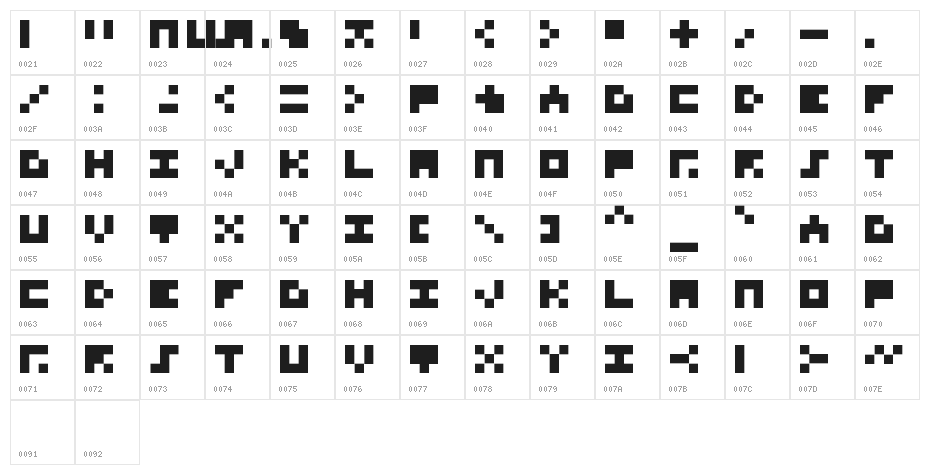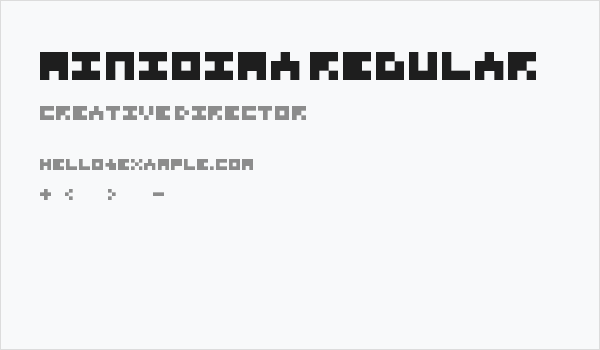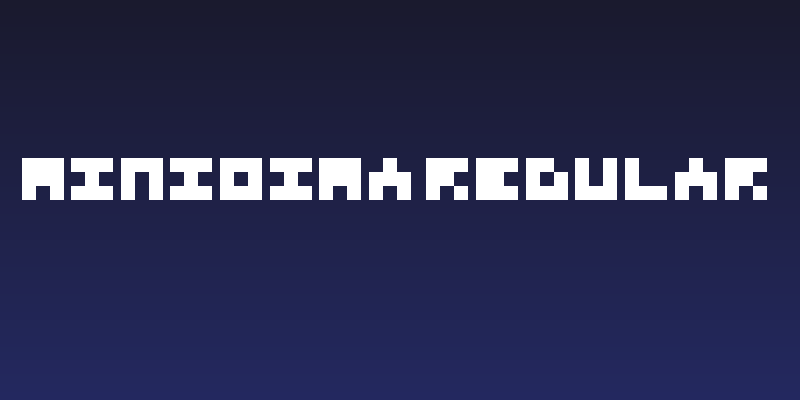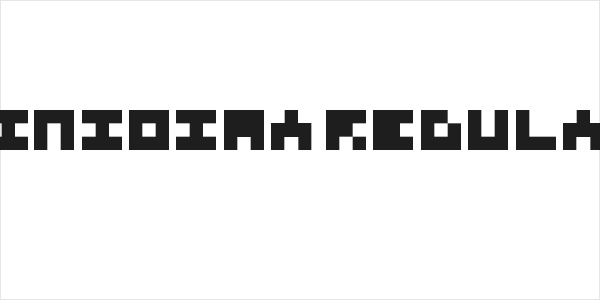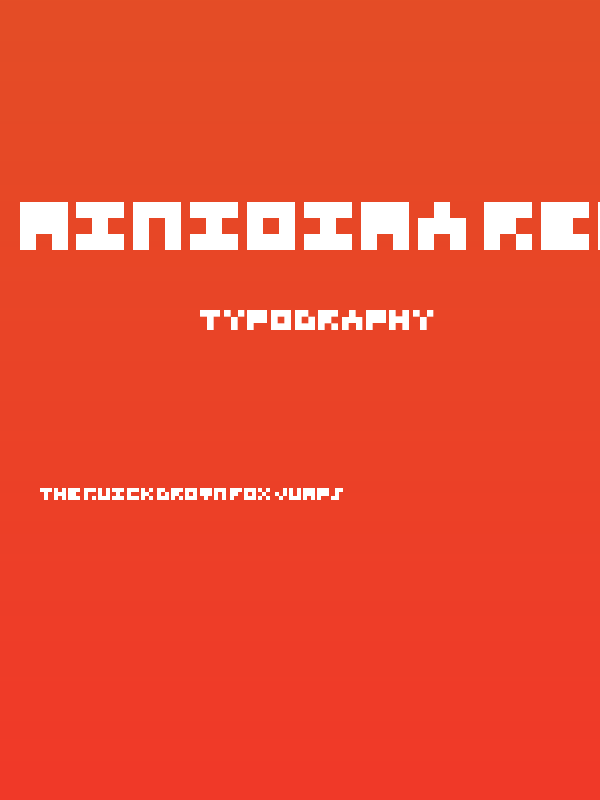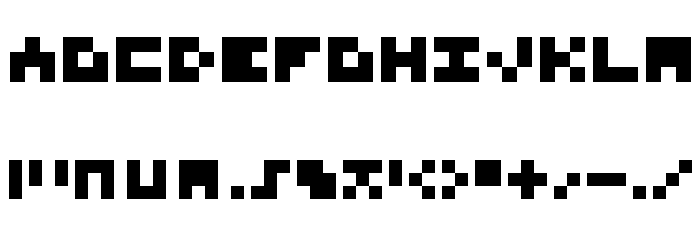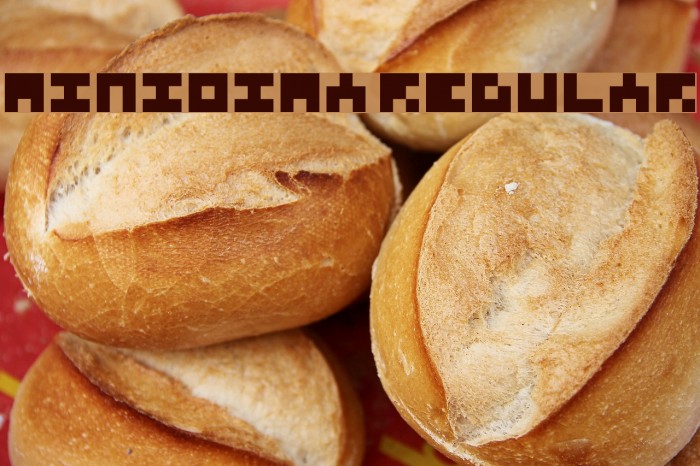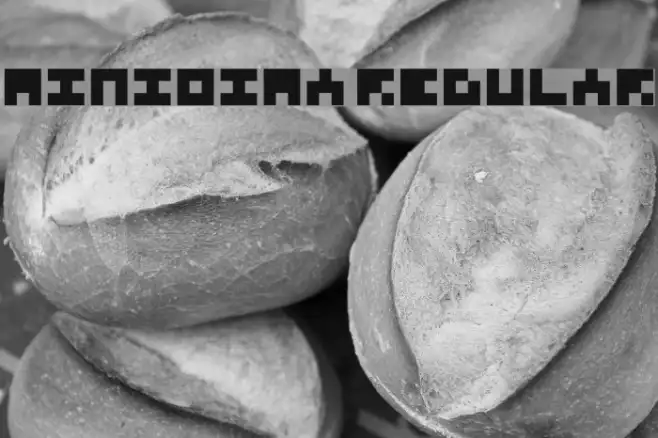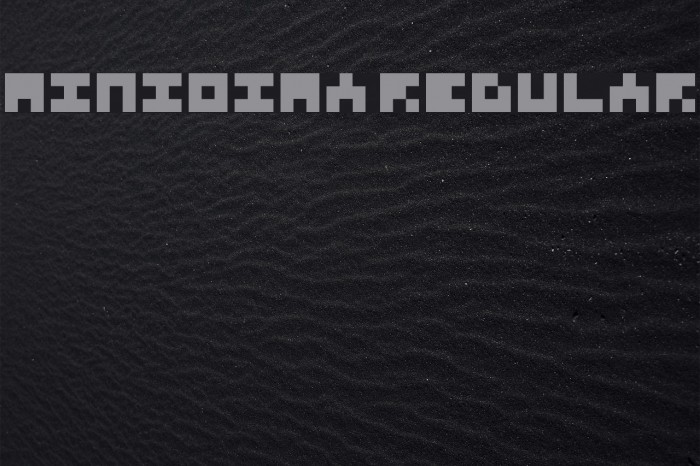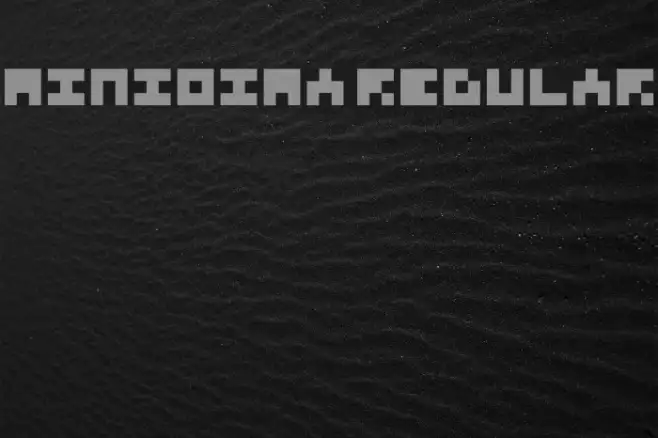
Miniozma Regular Font
Miniozma Regular Description
This font features a bold, pixelated design reminiscent of early digital displays and retro video games. Each character is constructed with a blocky, geometric style that emphasizes a uniform grid-like appearance. The uppercase and lowercase letters maintain a consistent height and width, creating a cohesive and structured look. Numbers and special characters follow the same pixelated theme, ensuring visual harmony across all elements. The font's distinct style makes it ideal for projects that aim to evoke nostalgia or a digital, tech-inspired aesthetic.